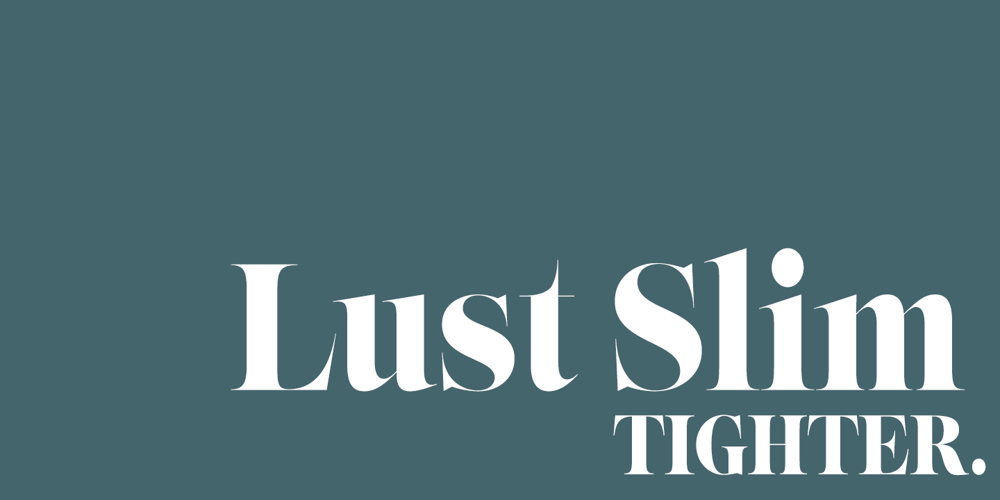
Lust Slim Font Family was designed by Neil Summerour and published by Positype. Lust Slim contains 6 styles and family package options. Check out the new Lust Pro & Lust Pro Didone to see how the series has grown and evolved. Confident and versatile, Lust is an exercise in indulgence—an attempt to create something over the top and vastly useful. If Lust Slim seems both new and familiar, that’s because it is. The series unapologetically channels Herb Lubalin, but produced with a deliberate, contemporary twist. There is an intentional slyness infused in the letterforms—the extreme thick and thin lines flow effortlessly without becoming gratuitous. It’s always just enough, not too much. What makes the type series so appealing? The curves. When asked to describe the letterforms, most people unwittingly allude to the human form, using adjectives usually reserved for describing physical traits… creating all-too-familiar comparisons. Summerour has grown to accept this as unavoidable and reasonable given his acknowledgement of its influences and has provided nuances within the letterforms to accentuate that. Intended to be set large, the typeface has both Standard (Lust, Lust Didone and a single unified Italic) and Display variants making it perfect for editorial use and a flexible solution for any display need.